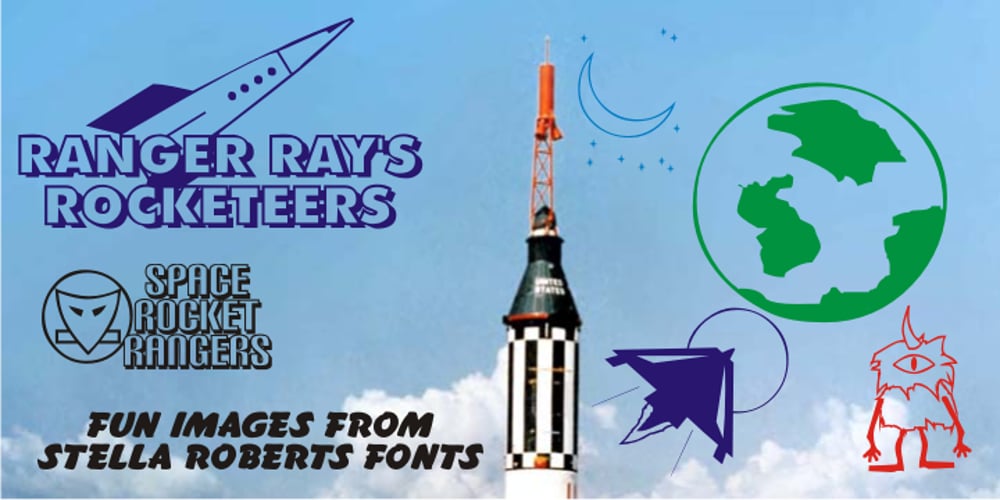
Ranger Rays Rocketeers SRF Font Family was designed by published by Stella Roberts Fonts. Ranger Rays Rocketeers SRF contains 1 styles and family package options. Ranger Rays Rocketeers SRF was originally a freeware font on Jeff Levine’s old site, but needed a lot of reworking and cleanup to be user-friendly. Jeff did all of the fixes and provided this charming retro-style font of space-age dingbats to the Stella Roberts Fonts project. The net profits from my font sales help defer medical expenses for my siblings, who both suffer with Cystic Fibrosis and diabetes. Thank you.